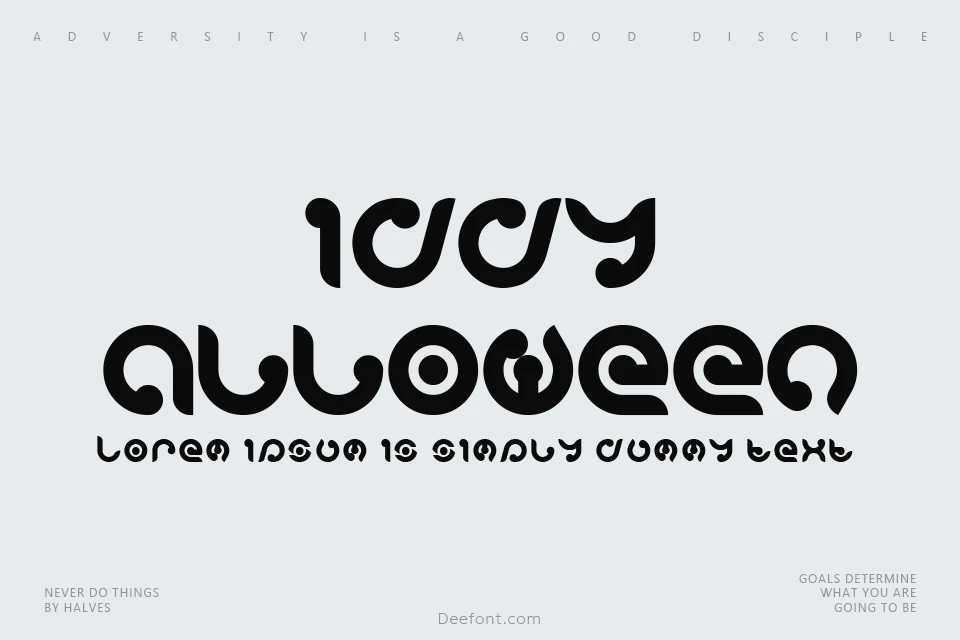
Kioshima Font
Kioshima Font is an incredibly unique and sci-fi display typeface. It is ideal for logos, posters and games. Add it to your designs and you will love the outcome.